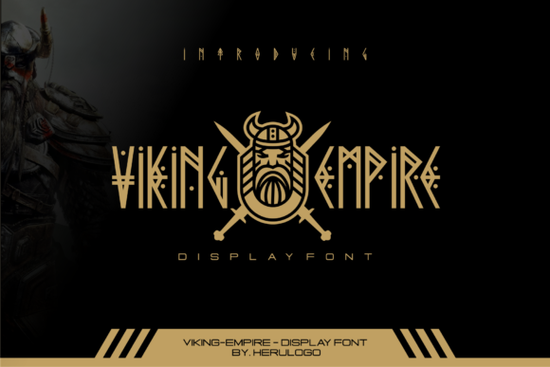
If you’ve been searching for a font that brings bold, ancient energy to your designs without looking overdone, Viking Empire Font might be exactly what you need. It’s not just another display typeface it’s built with rough, hand-carved strokes and uneven edges that echo Norse runes and Viking shields. Whether you’re designing merch for Etsy, branding a local brewery, or making posters for a themed event, this font adds instant character.
What kind of projects does this font work best for?
Viking Empire shines in situations where you want to grab attention think t-shirt slogans, logo headers, packaging labels, or social media banners. Because of its heavy weight and textured style, it doesn’t pair well with body text or small sizes. But as a headline? Perfect. Try it on:
- Print-on-demand mugs or hoodies with warrior-themed quotes
- Festival posters or medieval fair flyers
- Branding for craft beer, mead, or axe-throwing venues
- YouTube thumbnails or Twitch overlays for gaming channels
It also layers surprisingly well with cleaner fonts like Monica or Bookman when you need contrast between title and subtext.
How does it compare to other tribal or rugged fonts?
Not all “tribal” fonts feel authentic. Some are too smooth, others too chaotic. Viking Empire strikes a balance it’s stylized enough to read easily but still carries that weathered, battle-worn texture. If you’ve used Tiki Bar for tropical themes or Fries and Shake for retro diner signs, you’ll appreciate how Viking Empire fills a very specific niche: Norse-inspired grit.
Unlike fonts that try to mimic actual runic alphabets (which can be hard to read), this one uses modern Latin characters shaped with Viking aesthetics. That means your audience gets the vibe without squinting.
A few things to keep in mind before downloading:
- Spacing matters. Letters are wide and blocky give them room to breathe. Tight kerning will make words look cluttered.
- Color contrast helps. Dark backgrounds with light text (or vice versa) let the texture pop. Avoid mid-tone combos.
- Pair with simplicity. Don’t fight its personality. Use minimalist layouts or neutral supporting fonts.
Who should consider using Viking Empire Font?
This isn’t a corporate font. You won’t slap it on a bank brochure. But if you’re a crafter selling rune-engraved wood signs, a POD seller running a “Norse Mythology” shop, or a small business owner launching a Viking-themed escape room yes, absolutely. Even hobbyists creating D&D campaign materials or fan art for shows like Vikings or The Last Kingdom will find it useful.
Where else can I use this beyond print and digital design?
Because of its thick, clear letterforms, Viking Empire cuts beautifully on Cricut or Silhouette machines. Users have reported great results with:
- Vinyl decals for cars or laptops
- Wood-burned signs or engraved leather patches
- Heat-transfer vinyl on sweatshirts or tote bags
- Stencils for airbrushing or spray paint murals
One tip: if you’re converting the font to SVG for cutting, simplify the paths slightly to avoid tiny texture details that might tear during weeding.